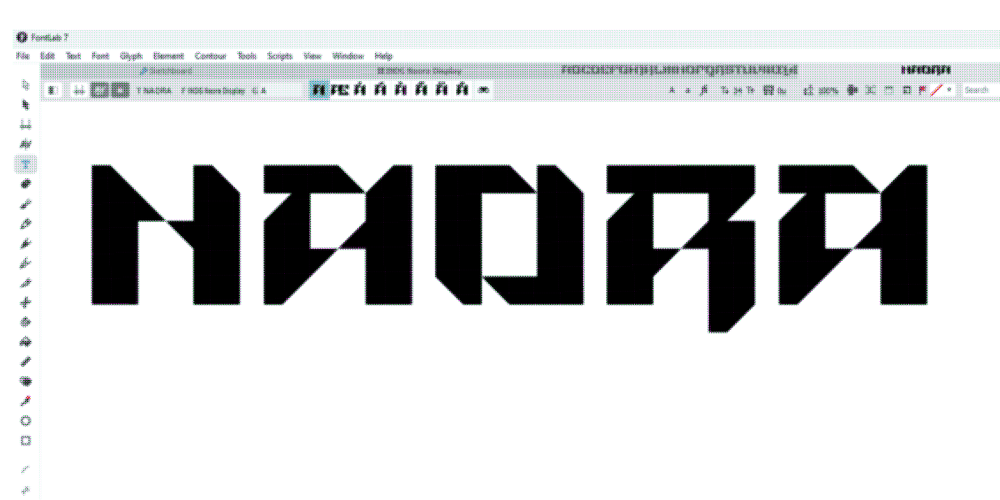
INDG Naora
INDG Naora font
INDG Naora Font Family was designed by Iñigo Uriarte and published by Iñigo Uriarte. INDG Naora contains 2 styles and family package options. An exercise of especulation on the future of form; a drastic distortion/reduction of the basic elements that conform an alphabet.Use INDG Naora for a rave flyer, sports graphics, sci-fi worldbuilding. It’s you who set the limit, but take advantage of the sharp and techno expression of these letters, imbued of not few gothic cues. To put it simply, Naora is the font Judge Dredd speaks in.Enjoy designing with it and please share your work with me at IG @indigo______indigo.Peace